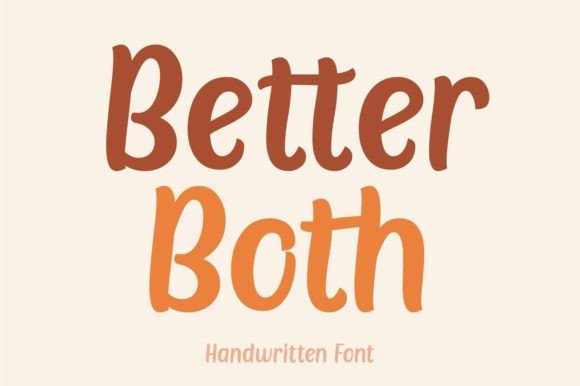
The Ultimate Go-To Font: A Deep Dive into Better Both
I’ll never forget the time I was working on a last-minute greeting card project for a friend’s birthday. I had all the design elements ready, but I was stuck on finding the perfect font. I wanted something sweet, casual, and friendly. That’s when I stumbled upon Better Both, a beautiful handwritten font that instantly became my favorite. In this article, I’ll share my experience with Better Both, its features, and how to make the most of it in various design platforms.
An Honest Review of Better Both
Better Both is a sweet and casual handwritten font that’s perfect for a wide range of design projects. Here’s what I love about it:
- ✨ Unique and friendly character: Better Both has a distinct personality that’s both approachable and charming.
- ✅ Highly legible: Despite its handwritten nature, Better Both is surprisingly easy to read, even at smaller font sizes.
- 💕 Versatile: This font is suitable for various design projects, from crafts and digital designs to presentations and greeting cards.
However, I did notice a few minor quirks:
- 🤔 Limited formal variations: Better Both is primarily a casual font, so it might not be the best choice for more formal designs.
- ⚠️ Occasional kerning issues: As with any font, there might be some kerning issues, especially when using it at larger font sizes.
The Story Behind Better Both
Better Both was designed by a talented type designer who aimed to create a friendly, approachable font for everyday use. Inspired by classic handwritten fonts, Better Both combines elegance with playfulness, making it perfect for a wide range of design projects.
| What type of designs is Better Both suitable for? | Better Both is perfect for crafts, digital designs, presentations, greeting cards, and more! |
| Is Better Both a formal font? | No, Better Both is primarily a casual font, so it’s best suited for informal designs. |
| Does Better Both support OpenType features? | Yes, Better Both supports OpenType features, such as glyphs and stylistic alternates, which can be accessed in compatible design software. |
In conclusion, Better Both is an amazing font that’s sure to become your go-to choice for various design projects. Its unique character, legibility, and versatility make it perfect for designers, crafters, and creative hobbyists alike. So go ahead, give Better Both a try, and see how it can elevate your designs!